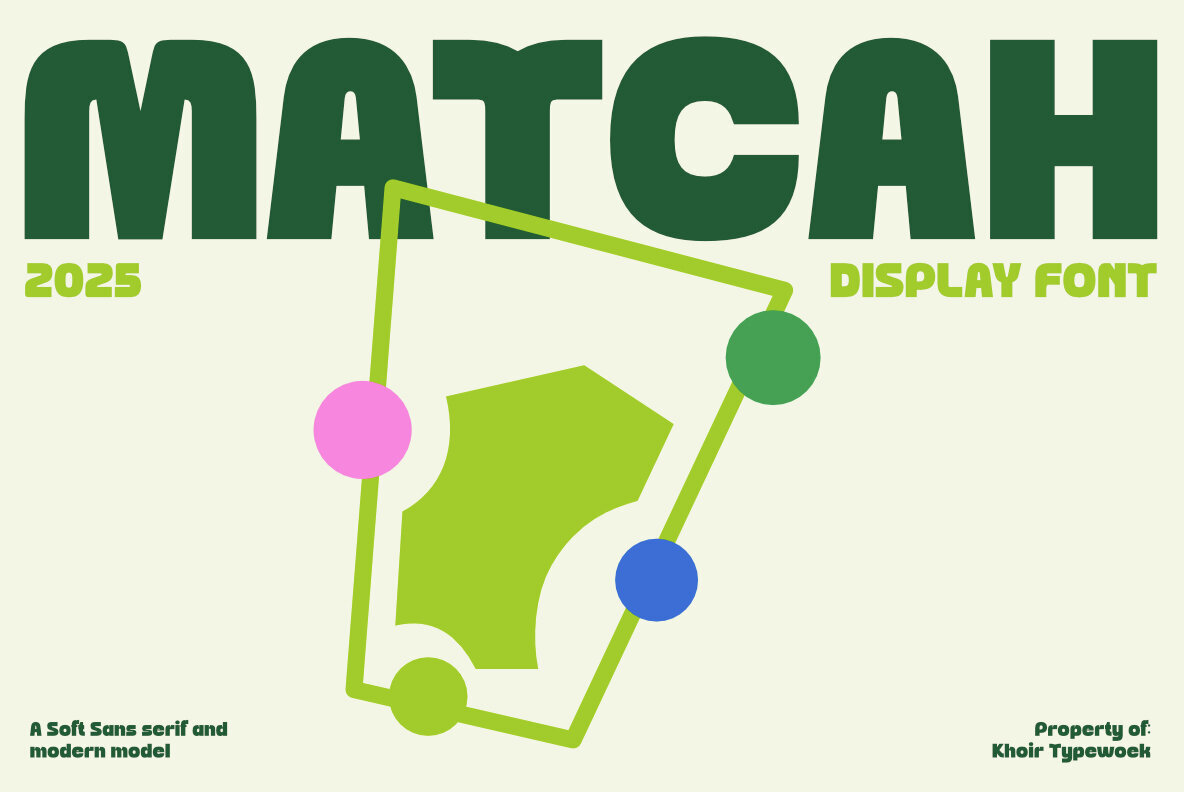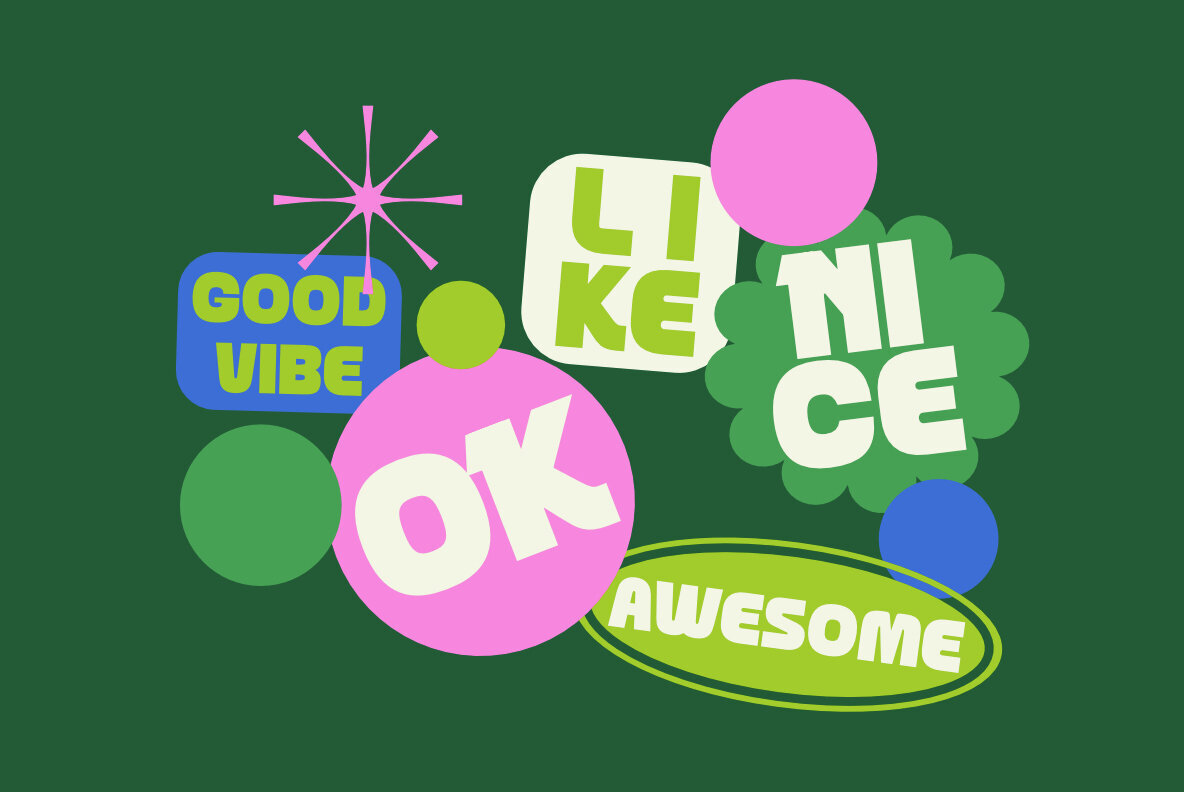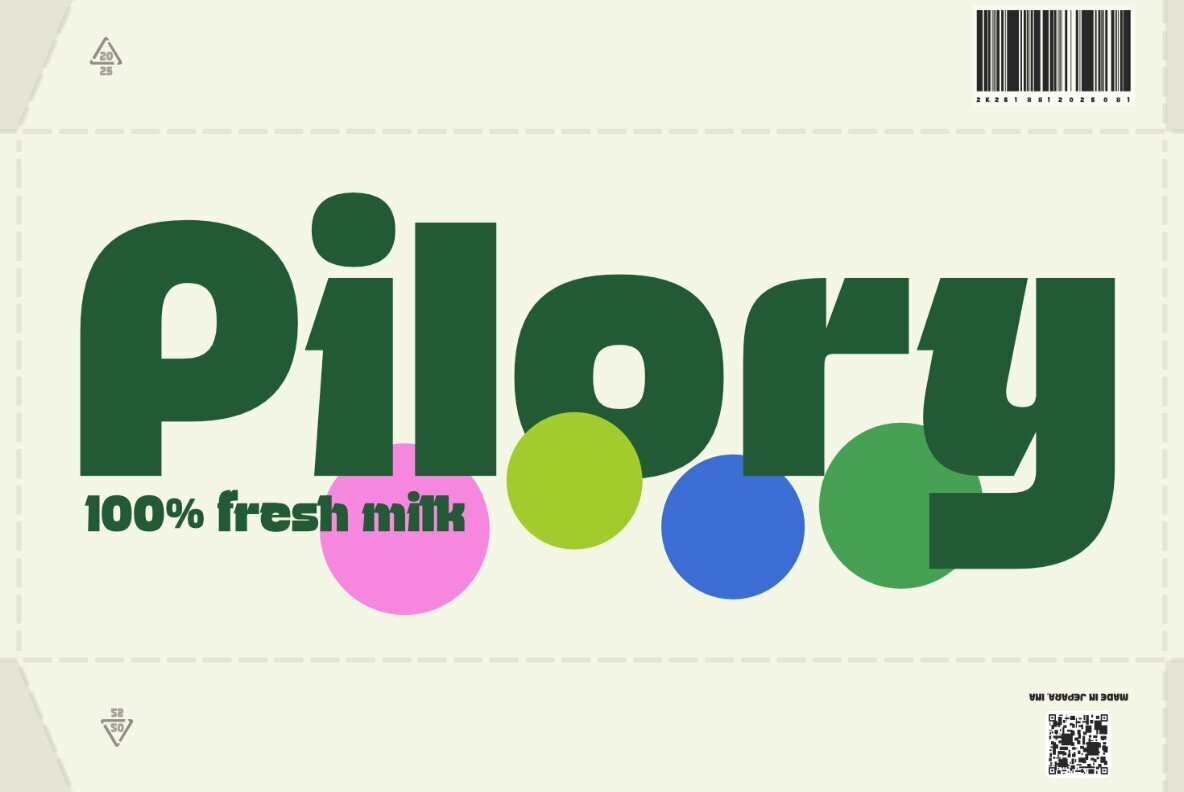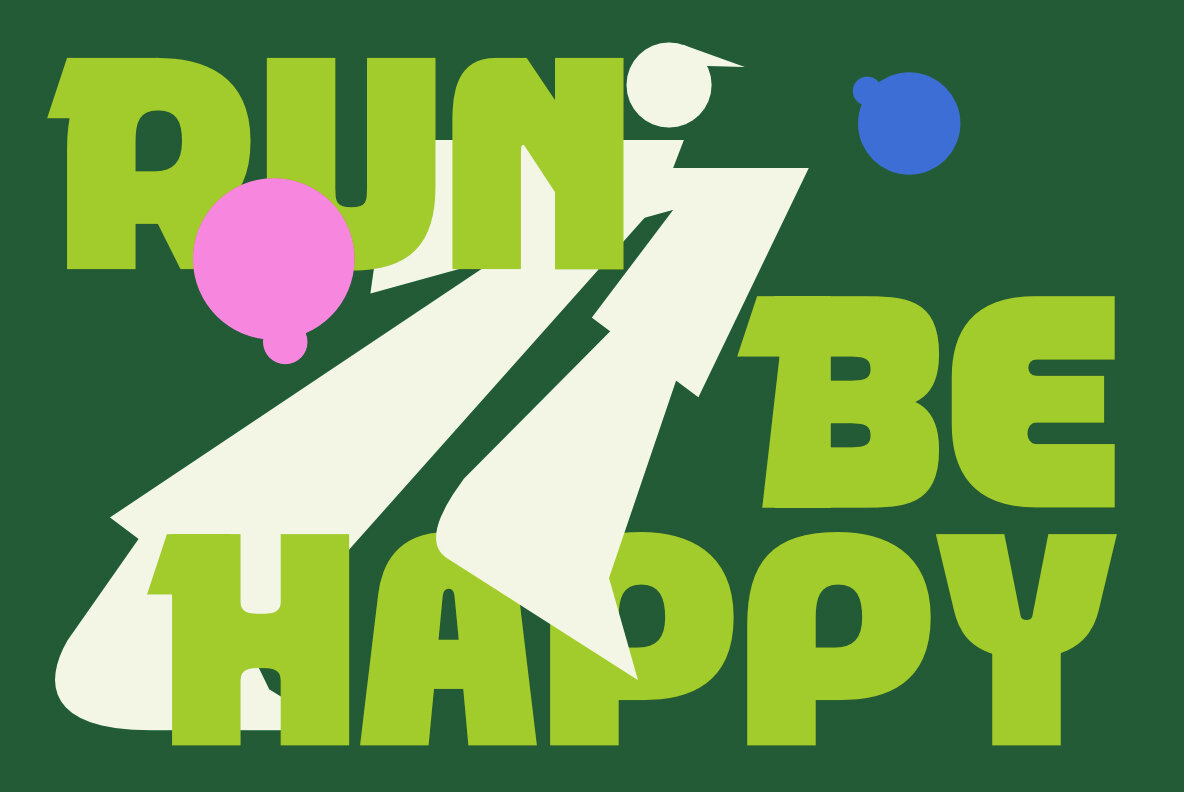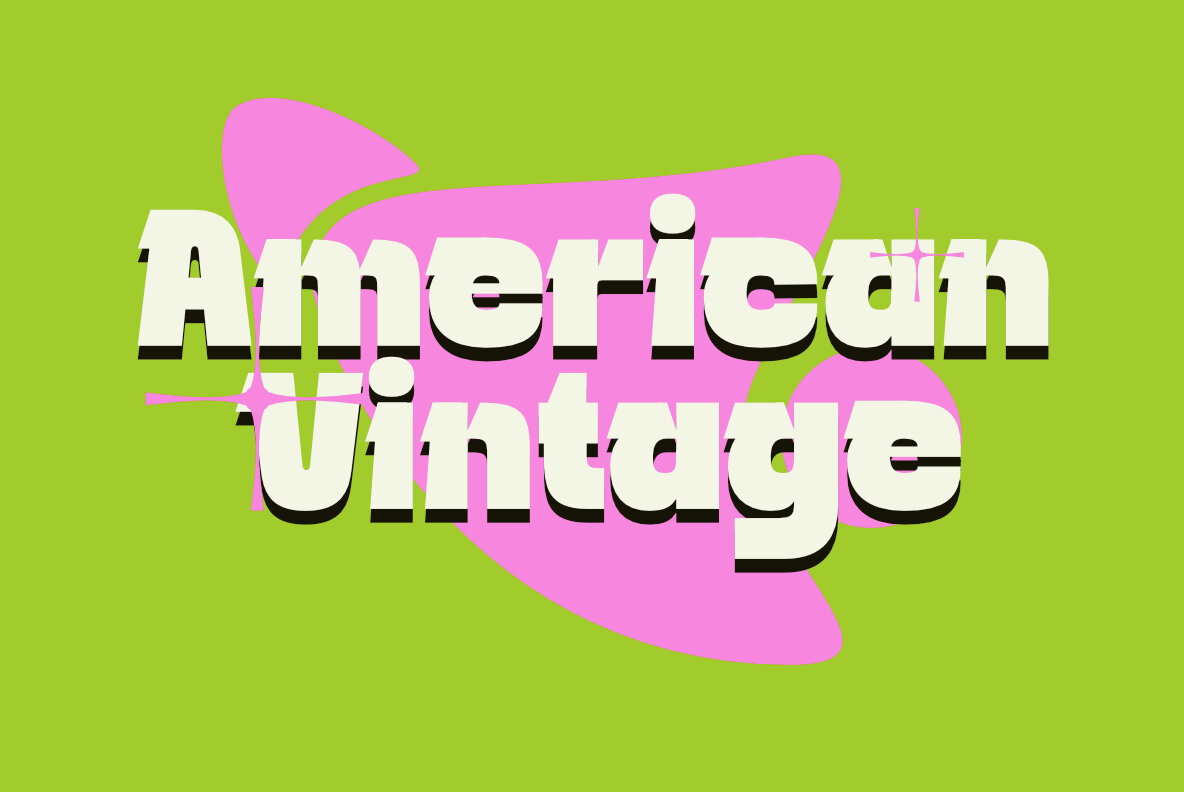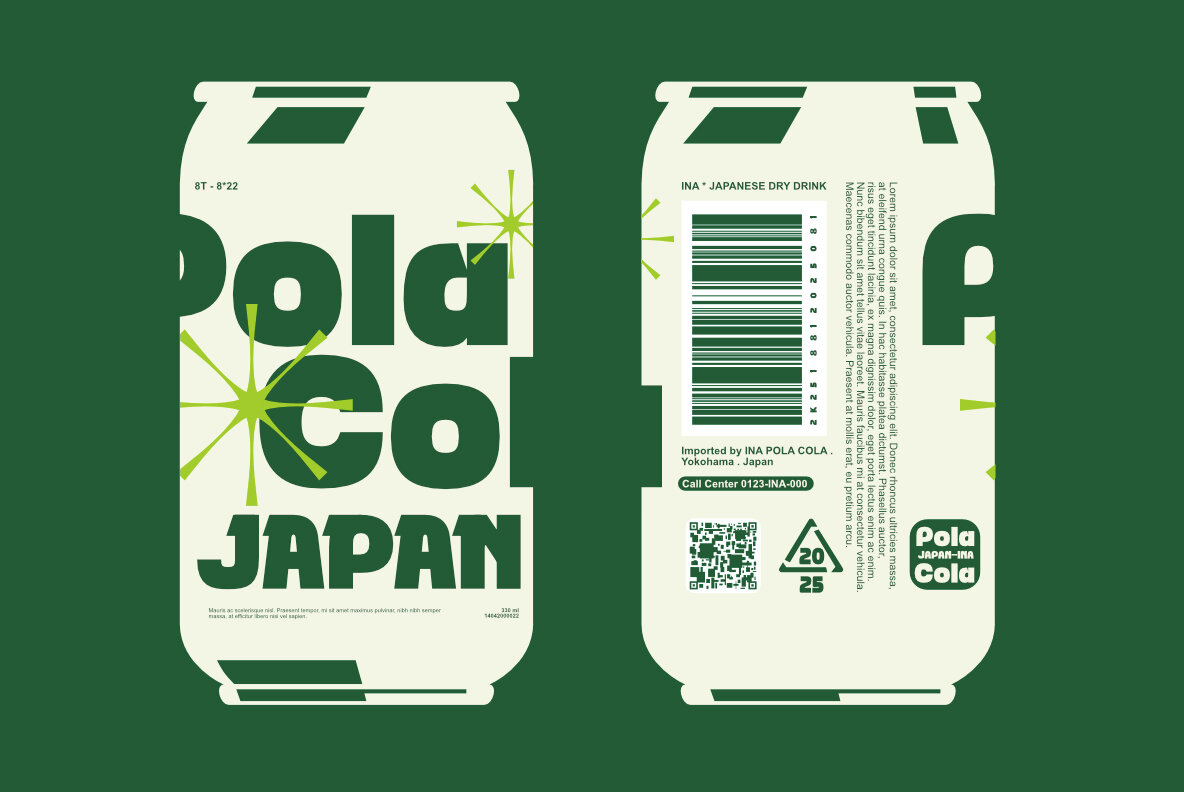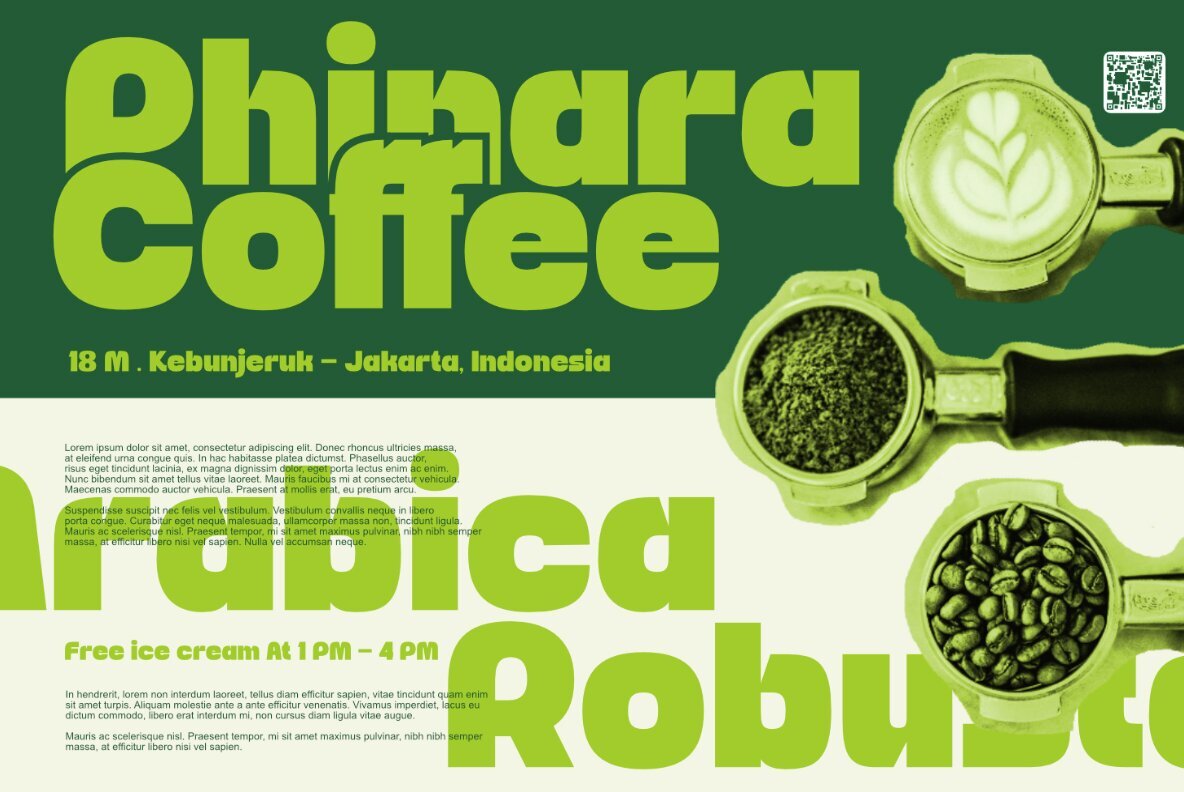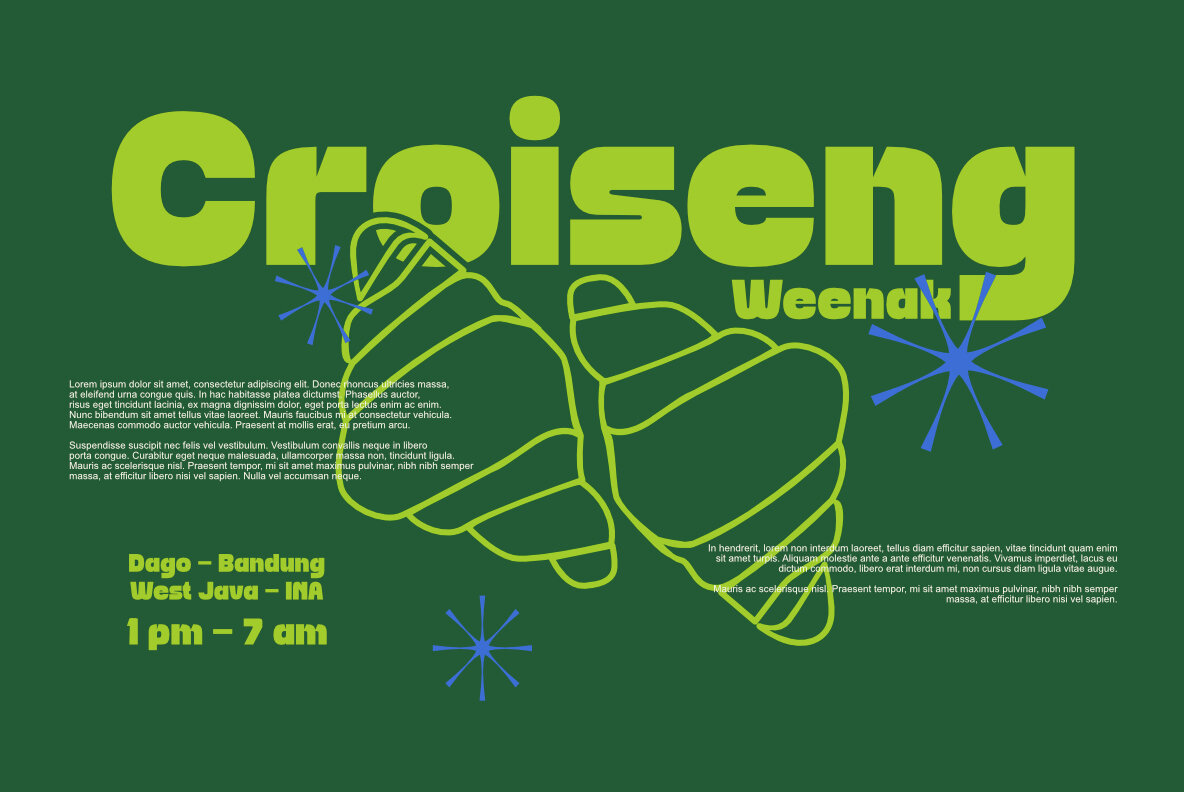
Matcah Font
Matcah Regular
The Sans Serif font boasts a unique character shape for every letter, presenting a medium weight that ensures easy recognition. This typeface includes a variety of alternate letters, allowing for a diverse appearance beyond its regular form. Its versatility makes it suitable for a wide range of design applications, such as food and beverage packaging, logos, covers, posters, and quotes.Distinctive Sans Serif: Unique and Versatile